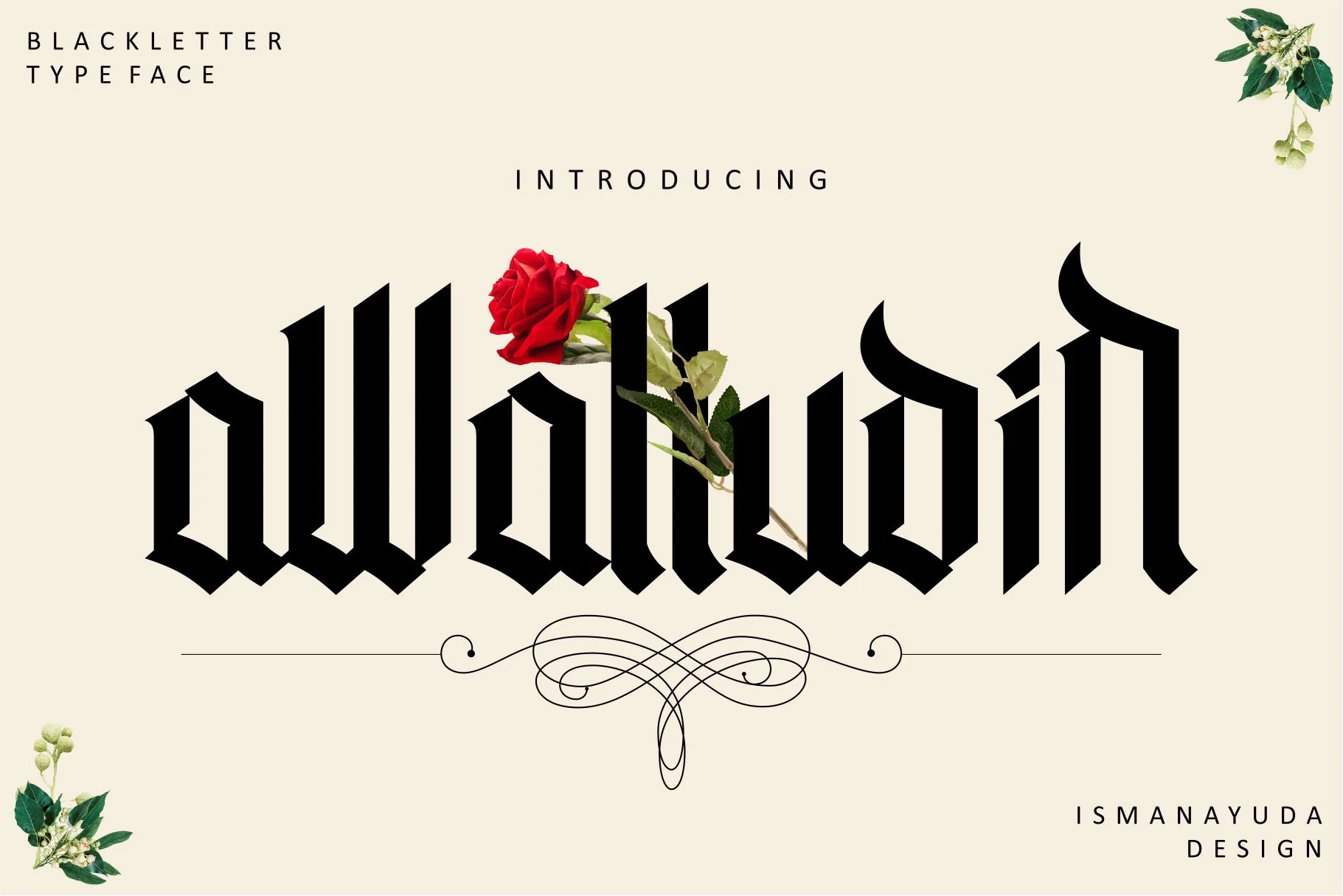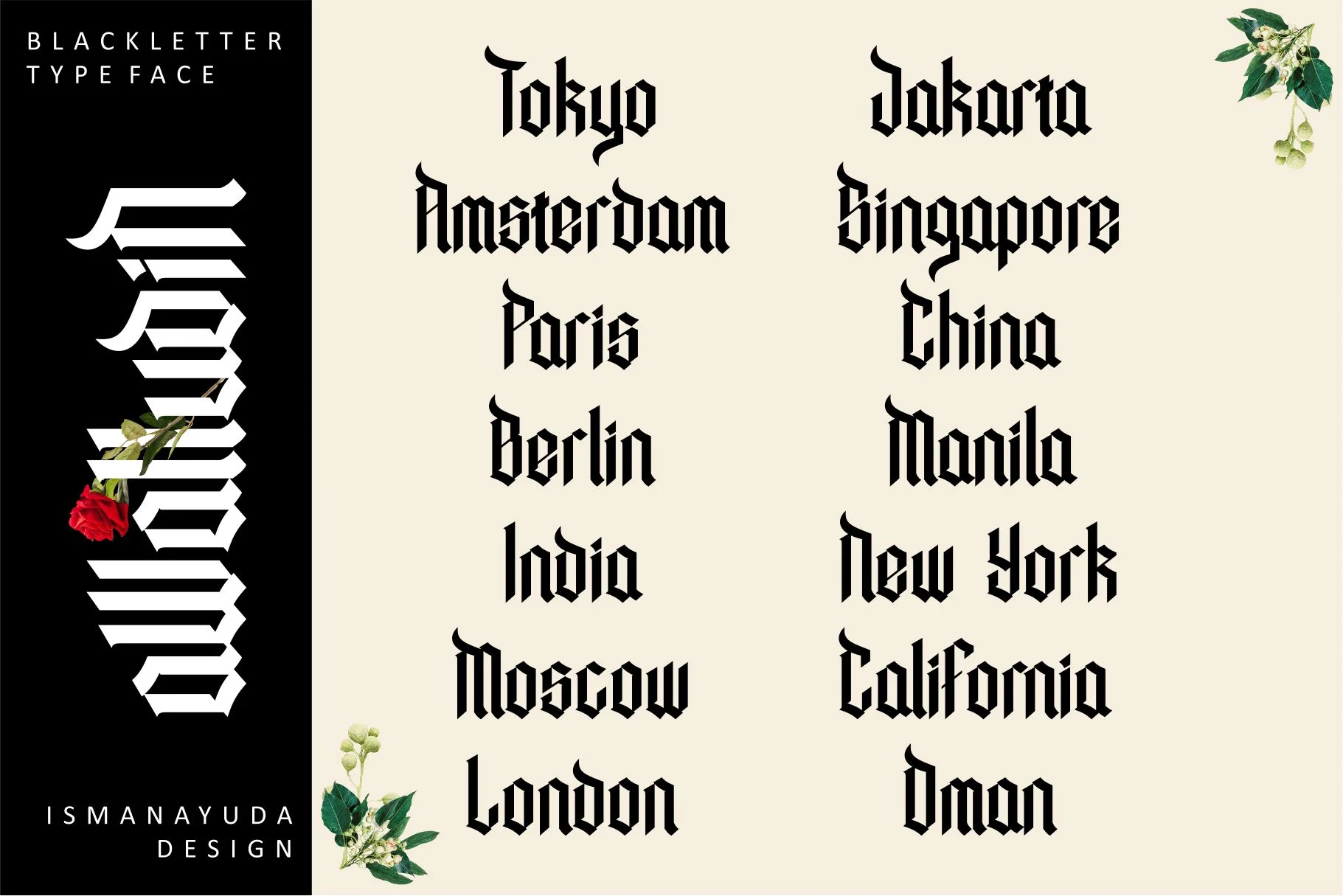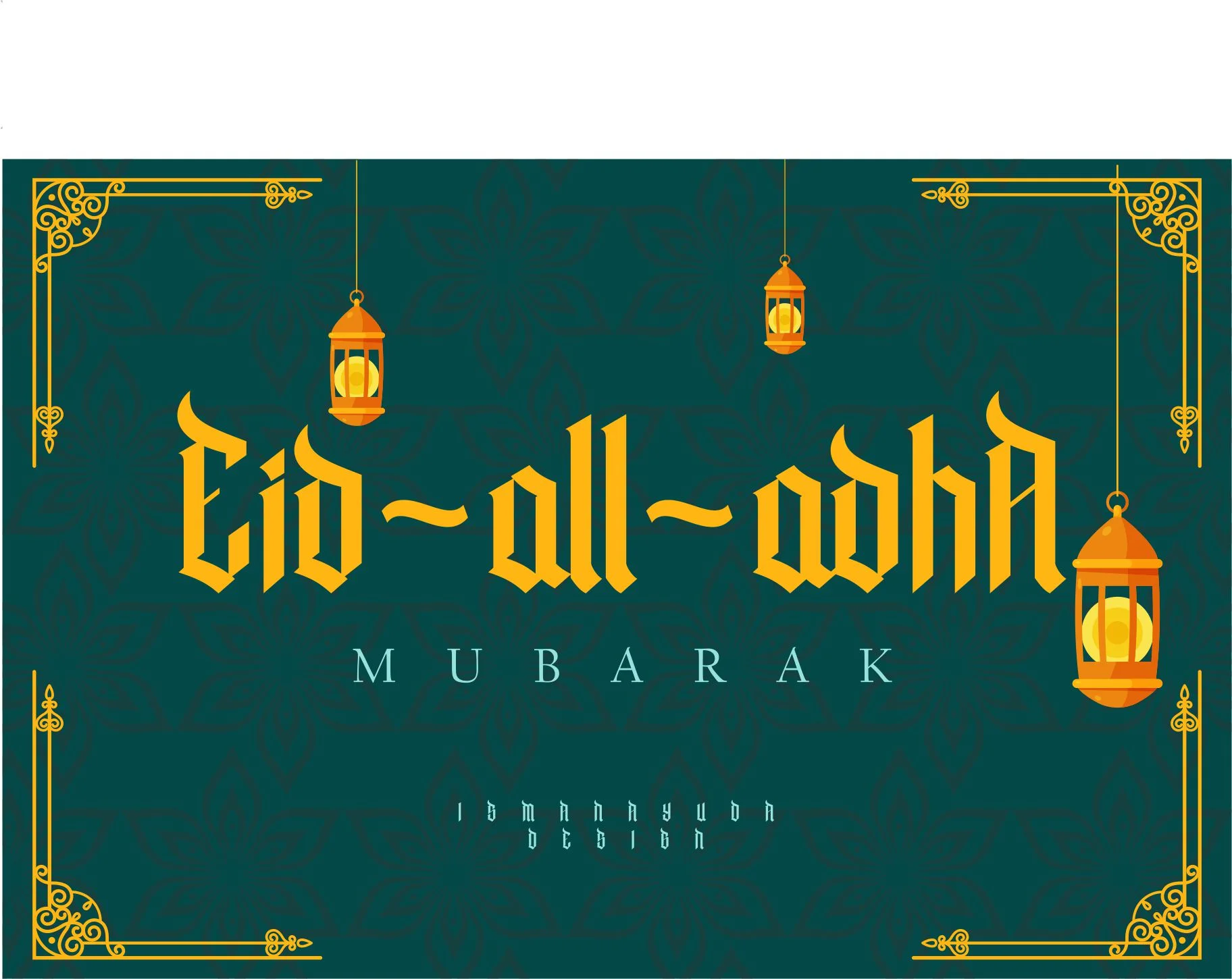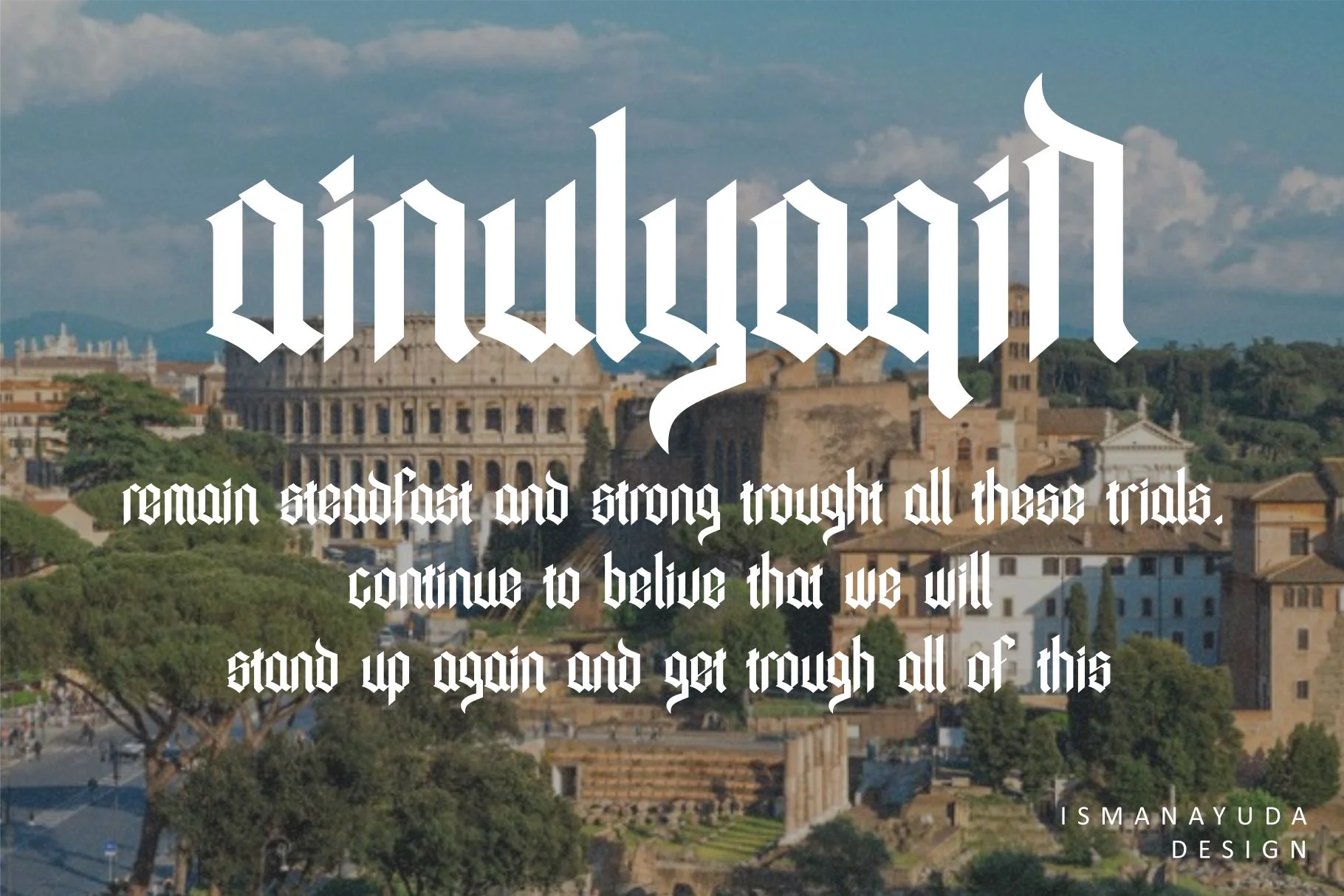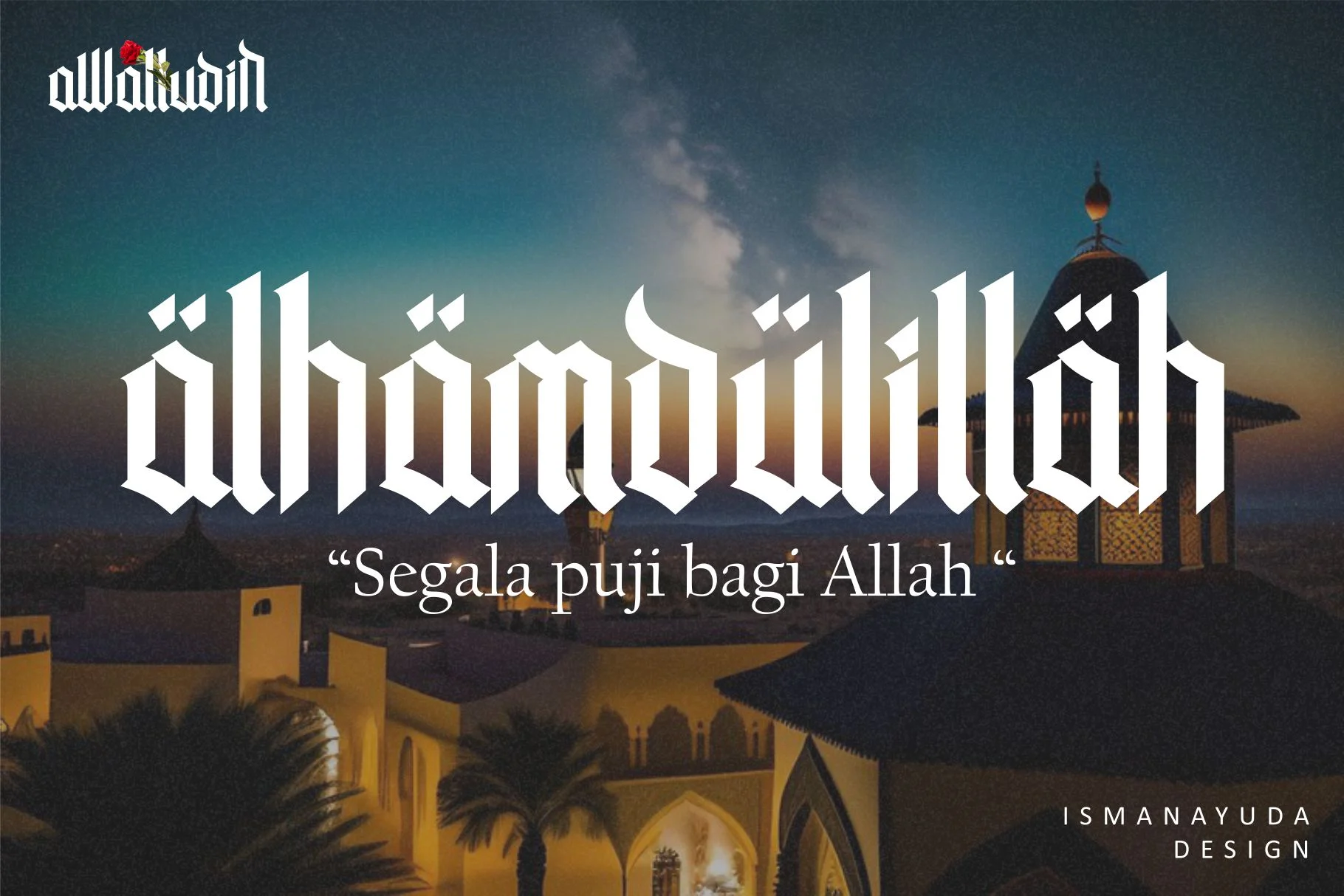
Awaludin
Awalludin, a modern Blackletter or Gothic-style typeface characterized by its aggressive, sharp, and bold aesthetic. It features high-contrast vertical strokes with pointed terminals that evoke a medieval yet contemporary feel. The design incorporates unique "thorn-like" decorative accents on several characters, making it highly suitable for edgy branding such as clothing lines, band logos (especially in metal or hardcore genres), and alternative music album covers. While it maintains the traditional structure of European blackletter culture, it is often described as having a unique character that is both fun and impactful for display purposes.